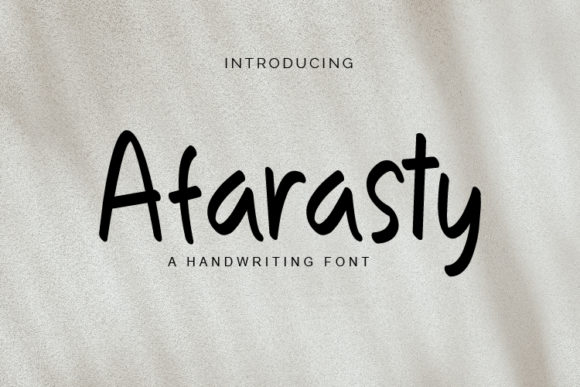
About Afrasty Font
Afarasty embodies fun, quirkiness and authenticity. It will look outstanding in any context, whether it’s being used on busy backgrounds or as a standalone headline! Use this unique handwritten font to bring any DIY project to life!